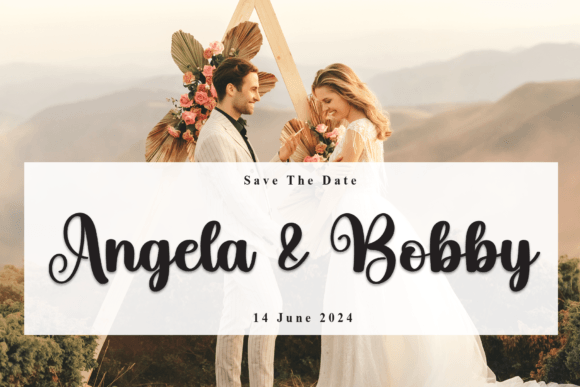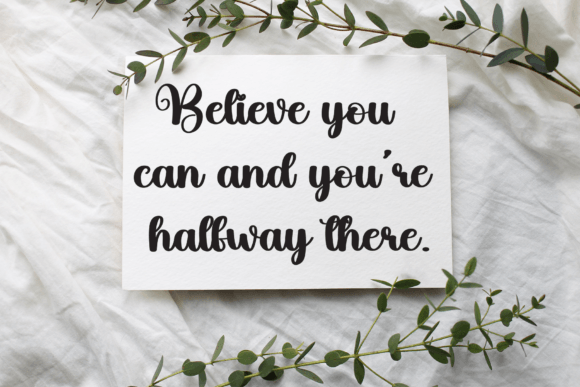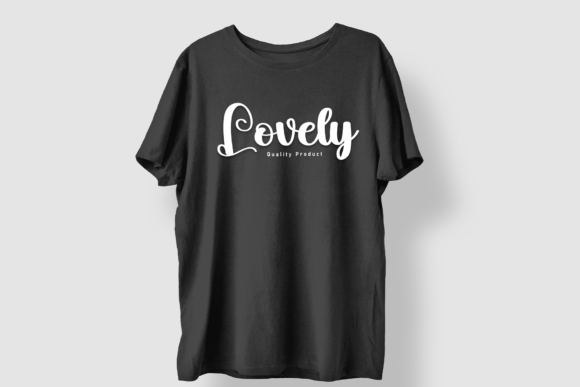
Introduction to Barbie Daily Font
Barbie Daily is a charming handwritten font that’s both sweet and confident.
Its bold strokes give it a lively, playful feel, perfect for adding a touch of personality to any design project .
Why Choose Barbie Daily Font?